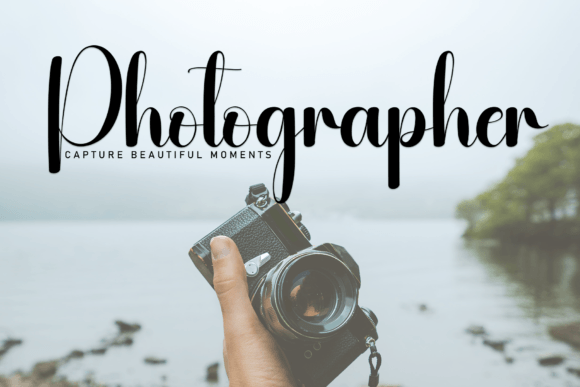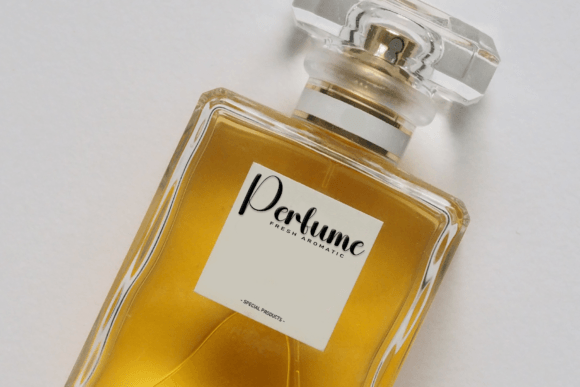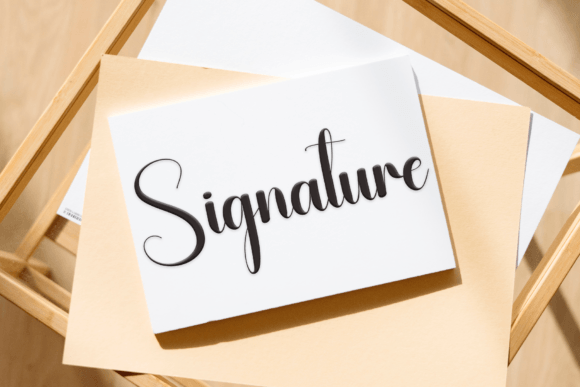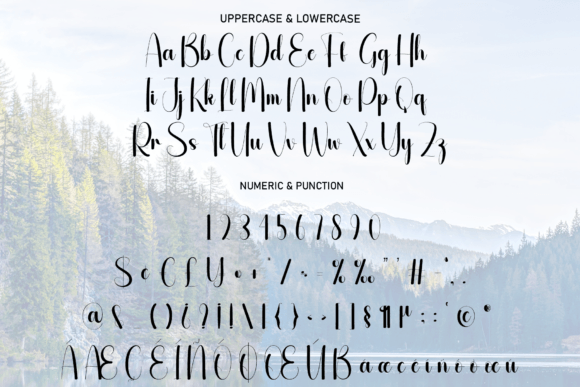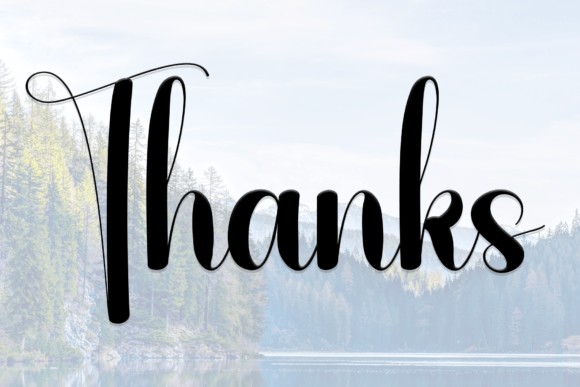
The Quest for the Perfect Font: Discovering Beautiful
I’ll never forget the time I was working on a wedding invitation project, and my client asked me to find a font that was “sweet, friendly, and elegant.” I scoured the internet, tried out dozens of fonts, but nothing seemed quite right. That was until I stumbled upon Beautiful, a stunning handwritten font that captured the essence of what I was looking for. In this article, I’ll share my experience with Beautiful, and explore its features, uses, and alternatives.
An Honest Review of Beautiful
Beautiful is a sweet and friendly handwritten font that’s perfect for adding a personal touch to your designs. Here’s what I love about it:
- ✨ Fresh and neat design that’s perfect for wedding invitations, cards, and more
- ✅ Easy to read, even at small sizes
- 💕 Beautifully crafted letters with a friendly, approachable feel
Of course, no font is perfect, and Beautiful has a few quirks:
- 🤔 Some letters may appear a bit too similar, which can make it tricky to use in certain contexts
- ⚠️ Limited availability of certain OpenType features, such as ligatures and stylistic alternates
The Story Behind Beautiful
Beautiful was designed by a talented type designer who’s passionate about creating unique and elegant fonts. The inspiration behind Beautiful comes from traditional handwriting and calligraphy, with a modern twist. The goal was to create a font that’s both elegant and approachable, perfect for designs that need a personal touch.
| What is Beautiful? | Beautiful is a sweet and friendly handwritten font perfect for designs that need a personal touch. |